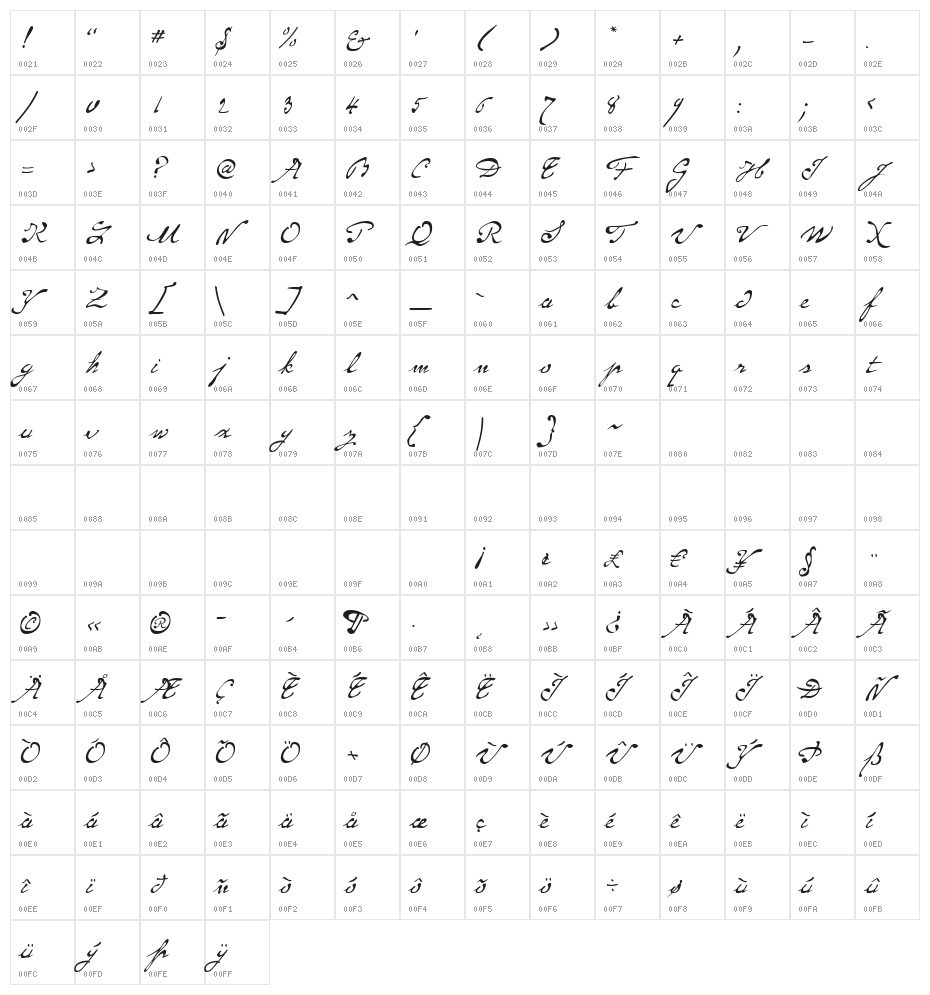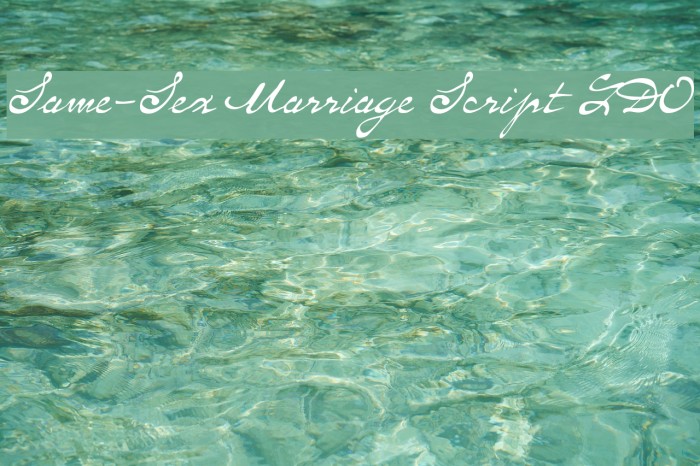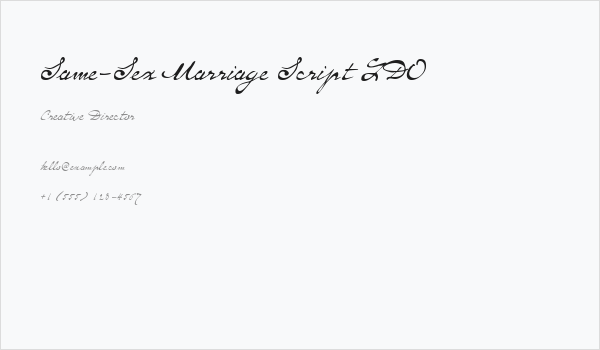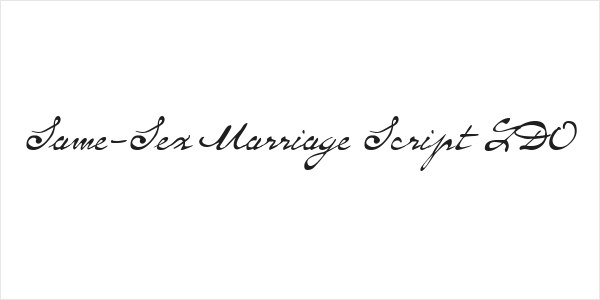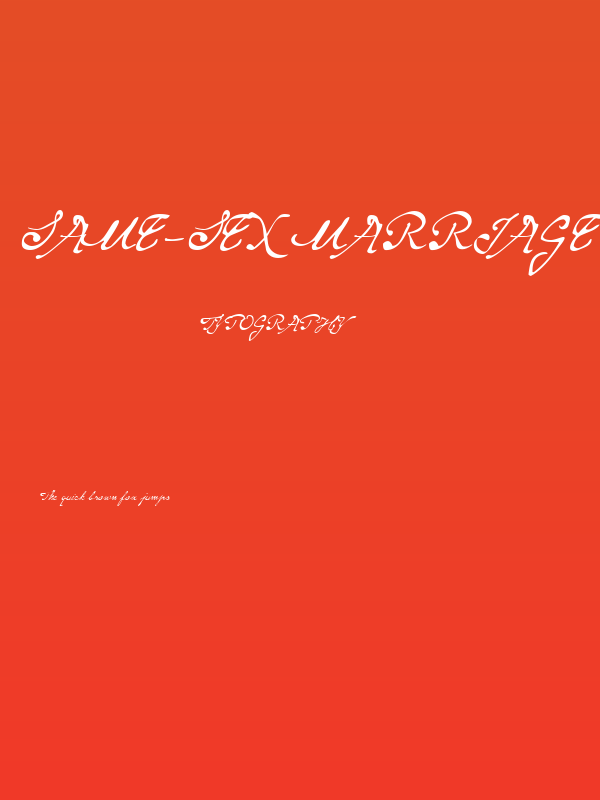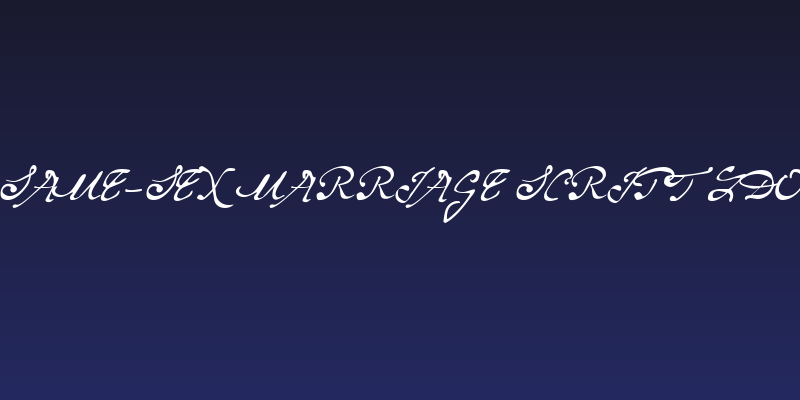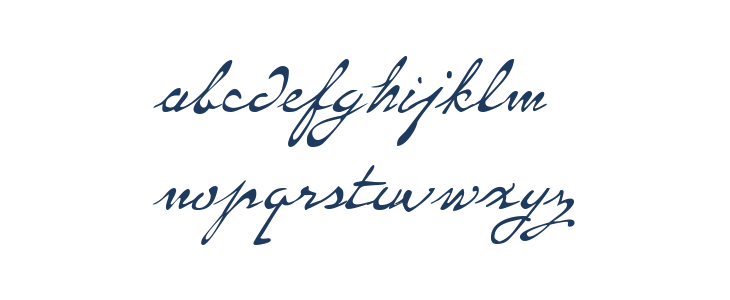
Same-Sex Marriage Script LDO Font
Same-Sex Marriage Script LDO Description
This elegant script font features flowing, cursive letters with a classic and sophisticated style. The uppercase letters are ornate and slightly slanted, with intricate loops and flourishes that give them a refined appearance. The lowercase letters maintain a consistent flow, connecting smoothly to create a seamless, handwritten look. The numerals are stylish and complement the overall script style, while the special characters are designed to match the elegance of the alphabet. This font's delicate strokes and graceful curves make it ideal for projects that require a touch of elegance and sophistication.
Overall StyleClassic
Use CaseLogos, Invitations, Decorative text
Proposed ProjectsWedding invitations, elegant branding, personal stationery, romantic quotes, and upscale packaging.